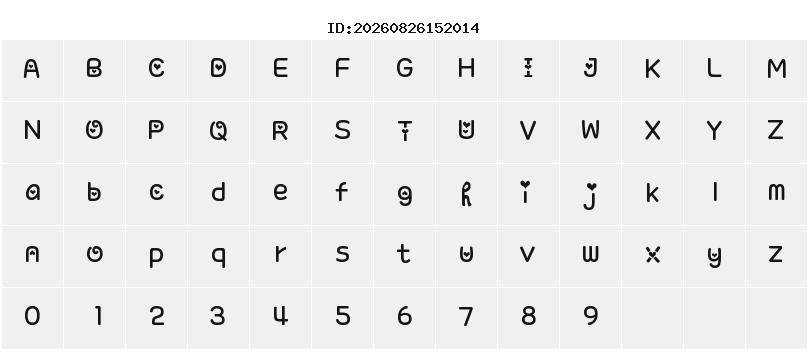
• Font Name: Wake Up Honey
• Full Font Name: Wake Up Honey
About Wake Up Honey.ttf
Wake Up Honey.ttf is a modern, elegant sans-serif font designed for ultimate readability and visual harmony. Perfect for branding, headlines, web design, and print materials.